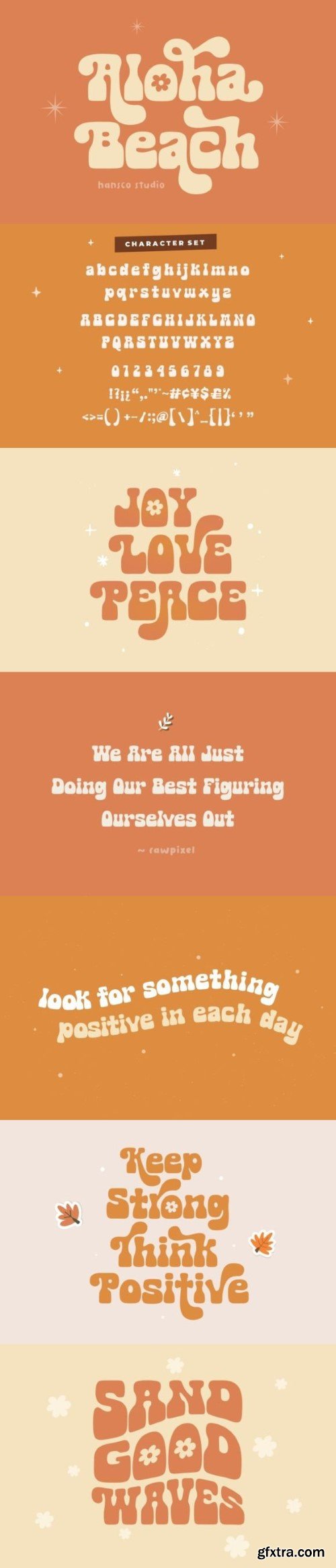
夏威夷海滩字体
Aloha beach is a slab type font with rounded characters on each side. You will also get some alternative swashes in it. Use this display slab font to add that special retro vintage touch to any design idea you can think of! Very suitable for logotype, Stickers, Packaging design, Cricut Project, headlines, brand identity, t shirt or apparel industry, posters, magazines, books, YouTube, Instagram, websites, or any of your creative design projects.